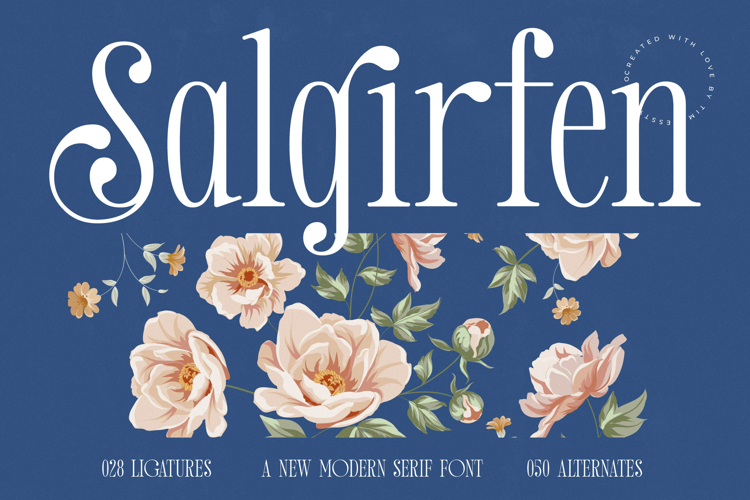
Salgirfen - New Modern Serif Font
Elevate your design projects with the exquisite charm of Font Salgirfen - New Modern Serif Font Serif Display. This remarkable typeface masterfully blends classic serif elegance with a contemporary aesthetic, creating an unforgettable visual presence. Its unique character forms and graceful curves immediately capture attention, making it the ultimate choice for compelling headlines and impactful display text.
Discover the intricate craftsmanship within Font Salgirfen - New Modern Serif Font Serif Display. Featuring high-contrast strokes and refined serifs, this font offers a sophisticated yet approachable feel. With an impressive collection of 028 ligatures and 050 alternates, designers gain unparalleled creative freedom to craft truly unique and expressive typographic compositions that stand out.
Reach a broader audience effortlessly. With its extensive multilingual support, Font Salgirfen - New Modern Serif Font Serif Display adapts seamlessly across global markets, making it incredibly versatile for international projects. This global adaptability ensures your brand message resonates effectively, regardless of the language or geographical reach.
Font Salgirfen - New Modern Serif Font Serif Display is the perfect choice for projects demanding a touch of luxury and sophistication. It excels in luxury branding, high-end packaging, editorial design, wedding invitations, fashion lookbooks, and magazine layouts. Imbue your creations with an undeniable sense of prestige and timeless style.